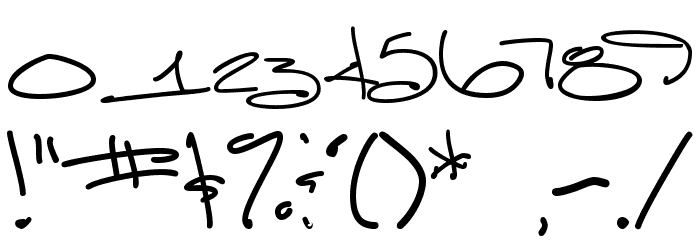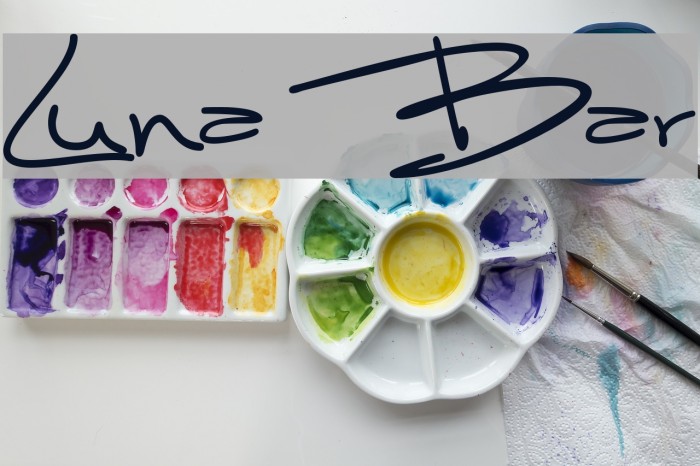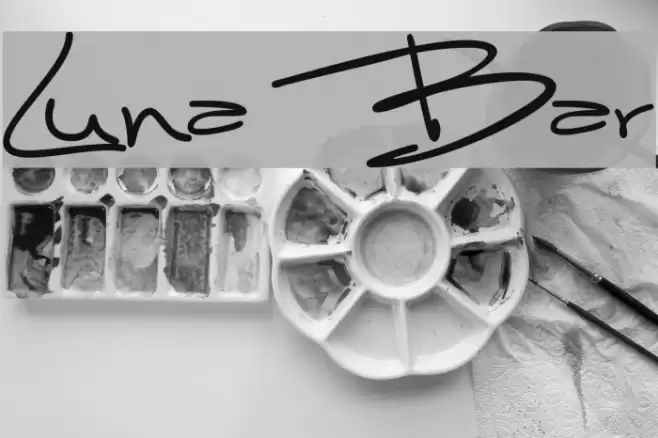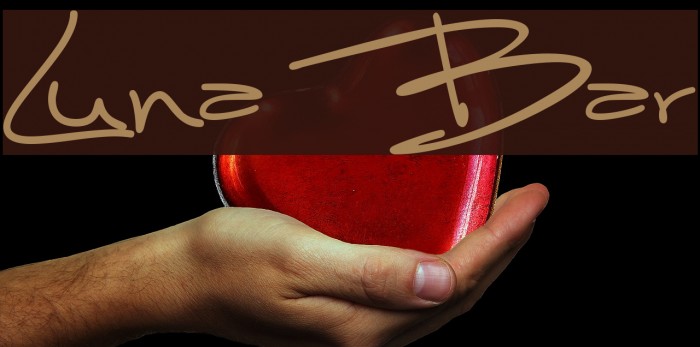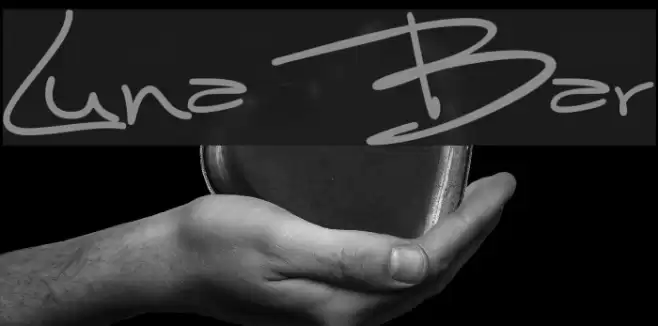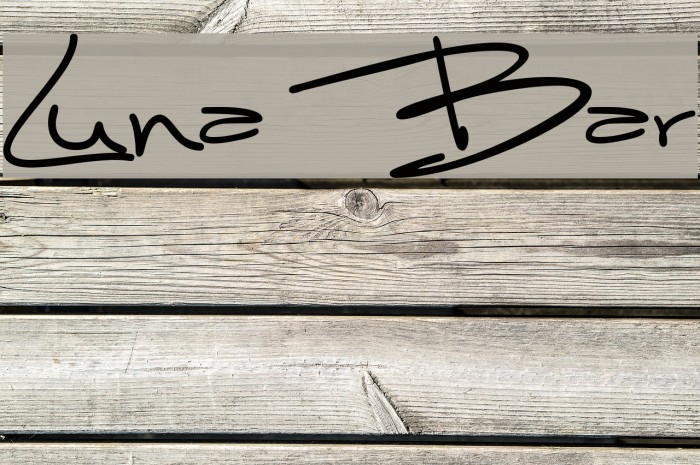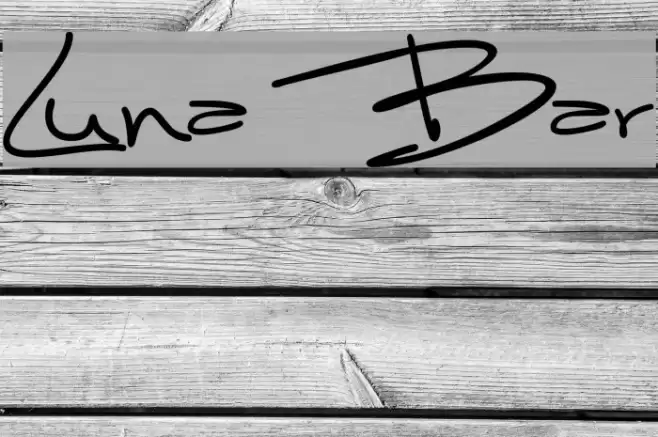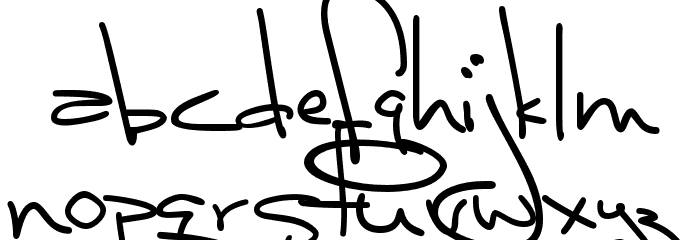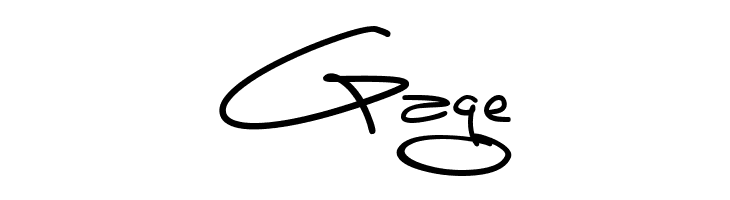
Luna Bar Font
Luna Bar Description
This font exudes a playful and energetic vibe with its loose, handwritten style. The characters are crafted with a dynamic flow, featuring irregular strokes and varying thickness that add a sense of spontaneity and creativity. The uppercase letters are bold and expressive, while the lowercase letters maintain a consistent, yet lively rhythm. Numbers and special characters follow the same whimsical design, making the font suitable for projects that require a personal touch. The overall appearance is informal and artistic, perfect for capturing attention and conveying a sense of individuality.
| Use Case | Logos, Posters, Invitations |
| Proposed Projects | Ideal for creative projects such as greeting cards, invitations, posters, and branding materials that aim to convey a personal and artistic touch. |